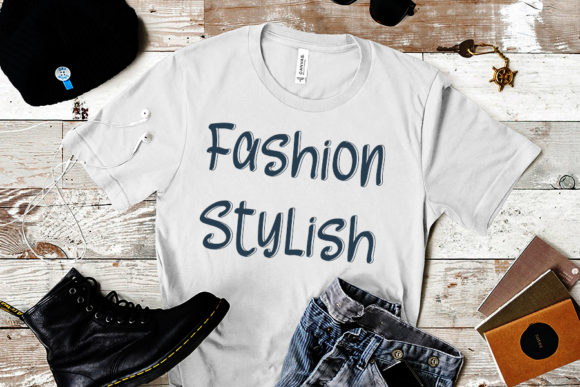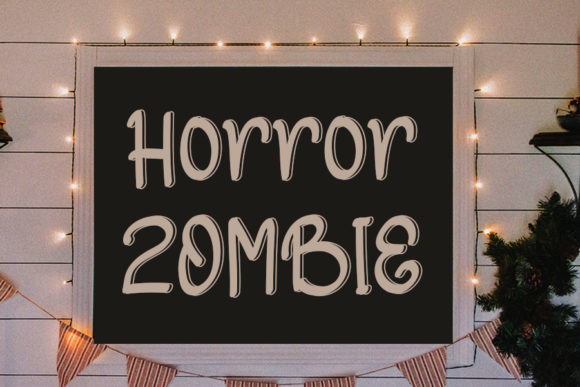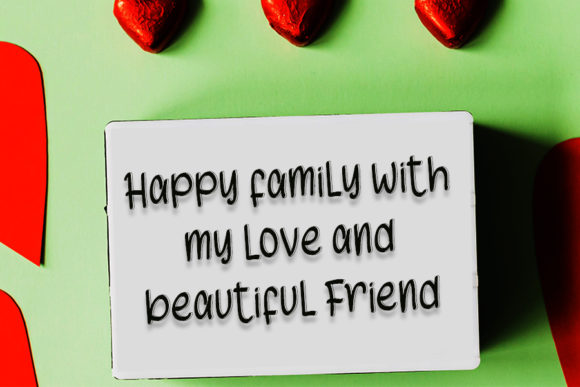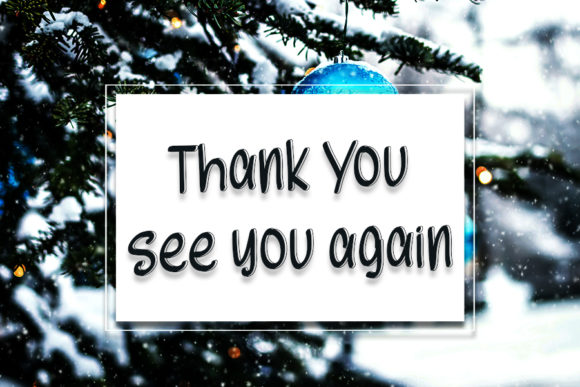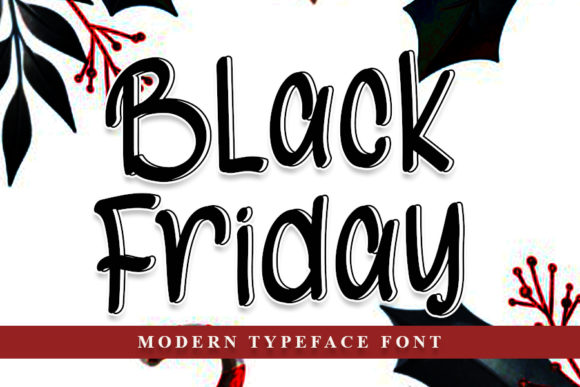
Introducing Black Friday Font: The Perfect Addition to Your Creative Projects
Are you tired of using the same old fonts in your designs? Look no further than Black Friday Font, a fun and friendly handwritten font that’s sure to make your creative projects stand out. In this article, we’ll take a closer look at what makes Black Friday Font so special and how you can use it to take your designs to the next level.
What is Black Friday Font?
Black Friday Font is a beautiful, handwritten font that’s perfect for adding a personal touch to your designs. With its unique and quirky style, this font is sure to capture the attention of your audience and leave a lasting impression. Whether you’re working on a graphic design project, crafting a marketing campaign, or simply looking for a new font to add to your collection, Black Friday Font is an excellent choice.
Key Features of Black Friday Font
So, what makes Black Friday Font so special? Here are just a few of its key features:
• Handwritten style: Black Friday Font has a warm, handwritten feel that’s perfect for creating a personal connection with your audience.
• Unique and quirky: This font has a one-of-a-kind style that’s sure to make your designs stand out from the crowd.
• Easy to read: Despite its playful style, Black Friday Font is easy to read and understand, making it perfect for use in a variety of applications.
• Versatile: Whether you’re working on a digital project or a print project, Black Friday Font is versatile enough to be used in a wide range of applications.
How to Use Black Friday Font in Your Designs
Now that we’ve covered the basics of Black Friday Font, let’s take a look at how you can use it in your designs. Here are a few ideas to get you started:
• Headings and titles: Use Black Friday Font to add a personal touch to your headings and titles. This is a great way to make your designs more visually appealing and engaging.
• Body text: If you want to add a bit of personality to your body text, Black Friday Font is a great choice. It’s easy to read and can help to break up large blocks of text.
• Signs and posters: Black Friday Font is perfect for use in signs and posters. Its bold, playful style is sure to grab attention and make your message stand out.
• Digital graphics: Whether you’re creating social media graphics, blog posts, or email newsletters, Black Friday Font is a great choice. Its digital-friendly style ensures that it will look great on any device.
Tips for Pairing Black Friday Font with Other Fonts
When using Black Friday Font in your designs, you may want to consider pairing it with other fonts to create a unique and visually appealing combination. Here are a few tips for pairing Black Friday Font with other fonts:
• Contrasting fonts: Pair Black Friday Font with a contrasting font, such as a bold sans-serif font, to create visual interest and make your designs more dynamic.
• Script fonts: Black Friday Font pairs well with other script fonts, such as Pacifico or Great Vibes. Try pairing it with a script font for a beautiful, elegant look.
• Serif fonts: For a more traditional look, try pairing Black Friday Font with a serif font, such as Times New Roman or Georgia.
Black Friday Font is a fun and friendly handwritten font that’s perfect for adding a personal touch to your designs. With its unique and quirky style, this font is sure to make your creative projects stand out. Whether you’re a designer, crafter, or simply someone who loves to create, Black Friday Font is an excellent addition to your font collection. So why wait? Download Black Friday Font today and start creating amazing designs!